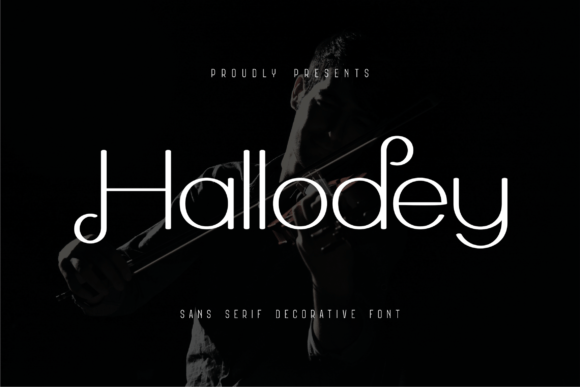
Unleash the allure of Hallodey Font, an exquisite sans serif font that exudes elegance, class, and a touch of modernity. Step into a realm of creativity where your designs come alive with a font that is not just visually captivating but also highly versatile.
Hallodey Font is your perfect companion for fashion and apparel projects, adding a touch of sophistication to your designs. Let your clothing line or fashion magazine stand out with a font that speaks volumes about style and grace. Create eye-catching logos and branding elements that leave a lasting impression on your customers.
Dive into the world of art and literature with Hallodey Font, the perfect choice for book titles and album covers. Its clean and legible lines bring a sense of timelessness to your creative pursuits. Whether you're writing a novel, designing a poetry collection, or creating an unforgettable album cover, Hallodey Font will elevate your work to new heights.
With Hallodey Font, social media posts and advertisements transform into captivating works of art. Its distinct character adds a touch of elegance to your online presence, ensuring that your content stands out in the digital realm. Engage your audience with visually stunning graphics, product promotions, and captivating ads that leave a lasting impact.
Hallodey Font is more than just a font; it's a gateway to a world of creativity and self-expression. Whether you're a seasoned designer or just starting, Hallodey Font empowers you to bring your vision to life. Its versatility extends to various projects, allowing you to explore your creativity without limits.